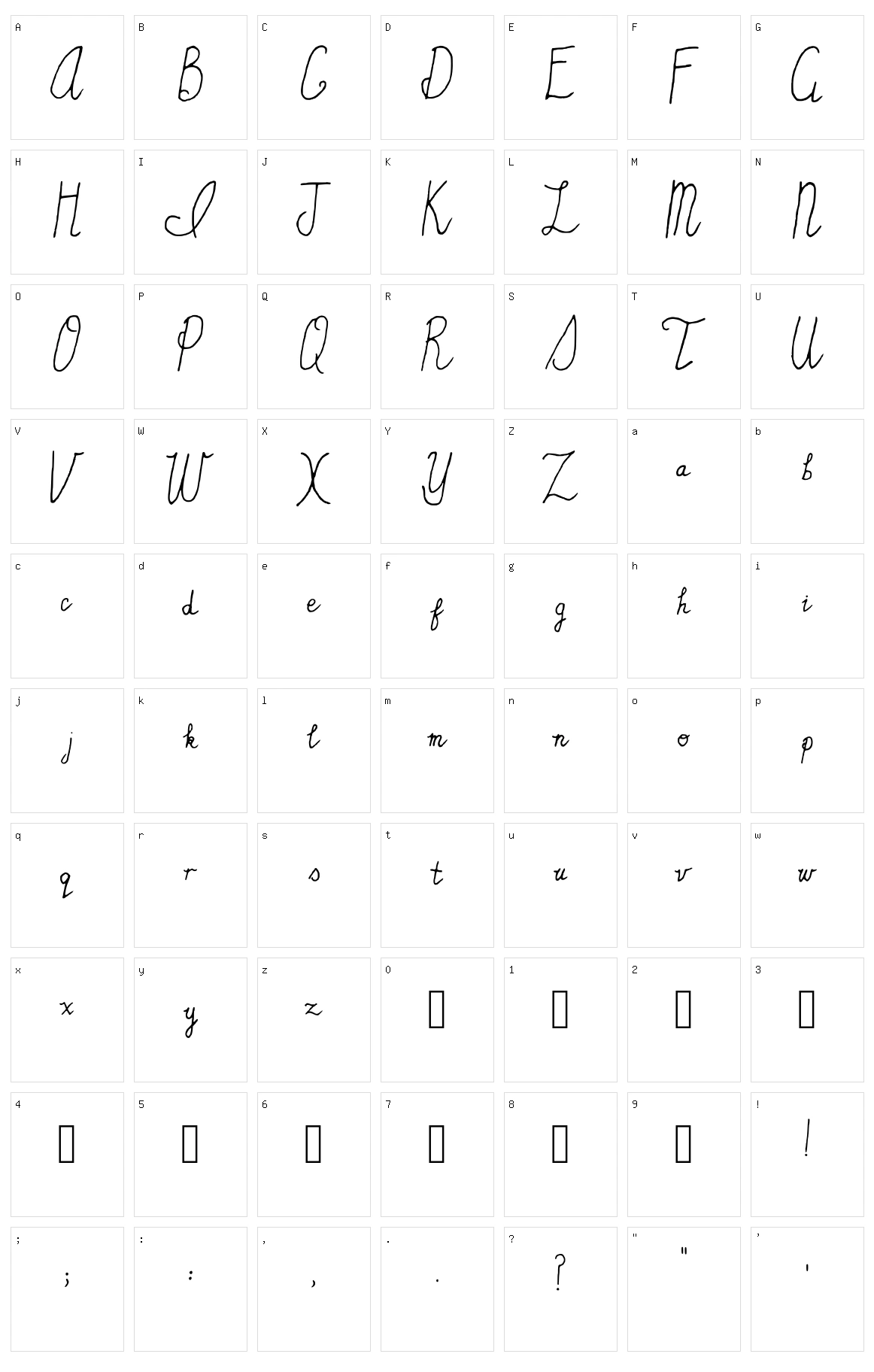
The free font Sincerely Yours is carefully designed by Shelley Evans, showcasing a thoughtful balance of creativity and usability and falls under the Script font style. When you download the ZIP file, it contains only 17.5 KB of font files, making it lightweight and quick to download. Please review the license details below to understand permitted usage and distribution rights. If license information is not available, we recommend using this font for personal projects only or contacting the author directly for commercial usage permissions.